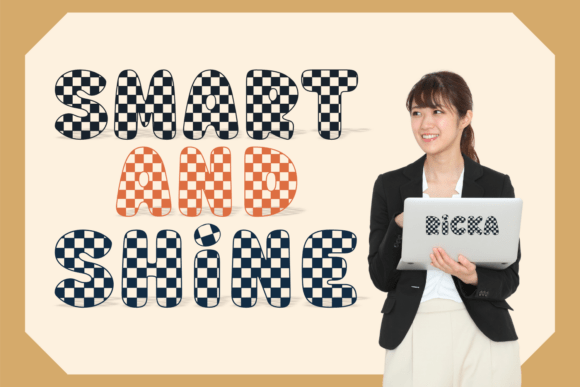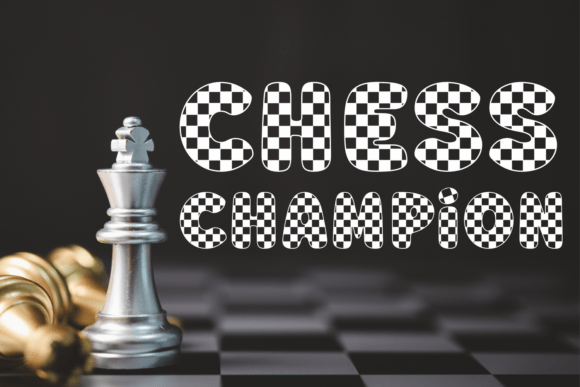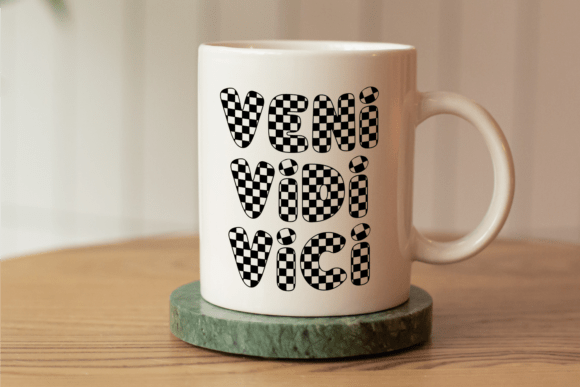
Introduction to Chess Start Font
Imbued with the captivating allure of the classic game of chess, Chess Start stands as a distinctive typeface that can transform an ordinary design into a remarkable masterpiece.
This beautifully decorative font finds its genesis in the intricate and elegant motifs of chess pieces An ideal choice for apparel designs, it effortlessly adds a polished aesthetic to everyday items like t-shirts, caps, or even mugs.